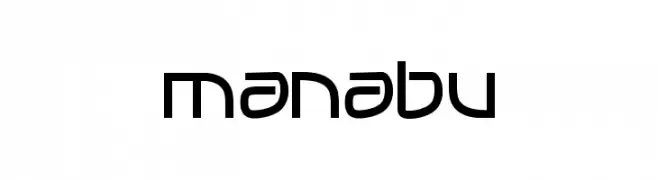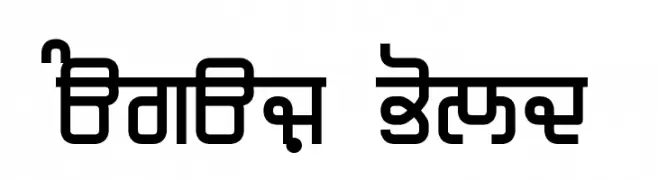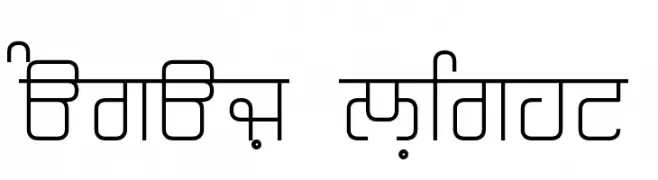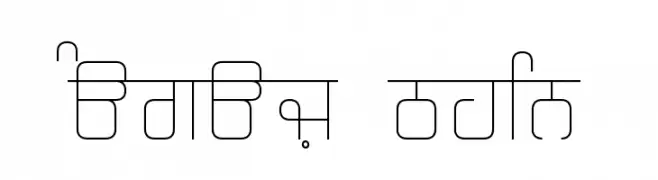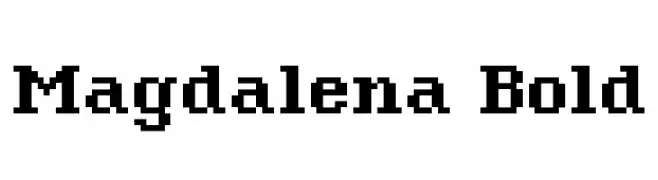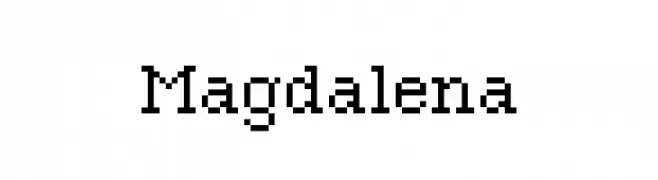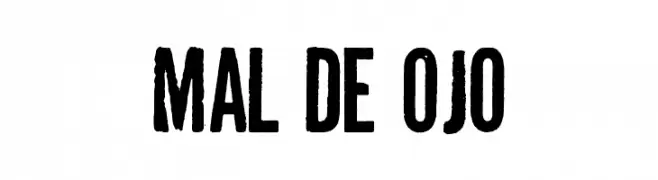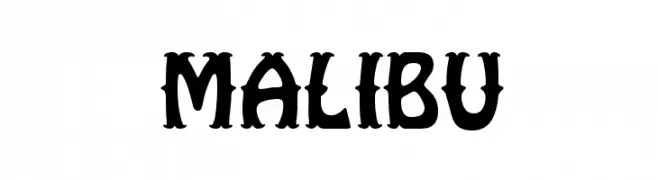
• Magaz Bold
A bold, geometric font with a modern and striking design.
• Magaz Light
A modern, geometric font with rounded edges and consistent line thickness.
• Magaz Thin
A modern, thin, geometric font with rounded corners and a minimalistic style.
• Magdalena
A pixelated font with a retro digital style.
• Magdalena Bold
A bold, geometric font with a modern and industrial aesthetic.
• Mal de Ojo
• Malibu
A bold, decorative font with a playful, vintage flair.
• Maline
A modern, continuous line font with fluid, interconnected characters.
• MANABU
A modern, geometric font with angular lines and a sleek, futuristic appearance.
• MANABU
A modern, geometric font with sharp edges and a futuristic style.